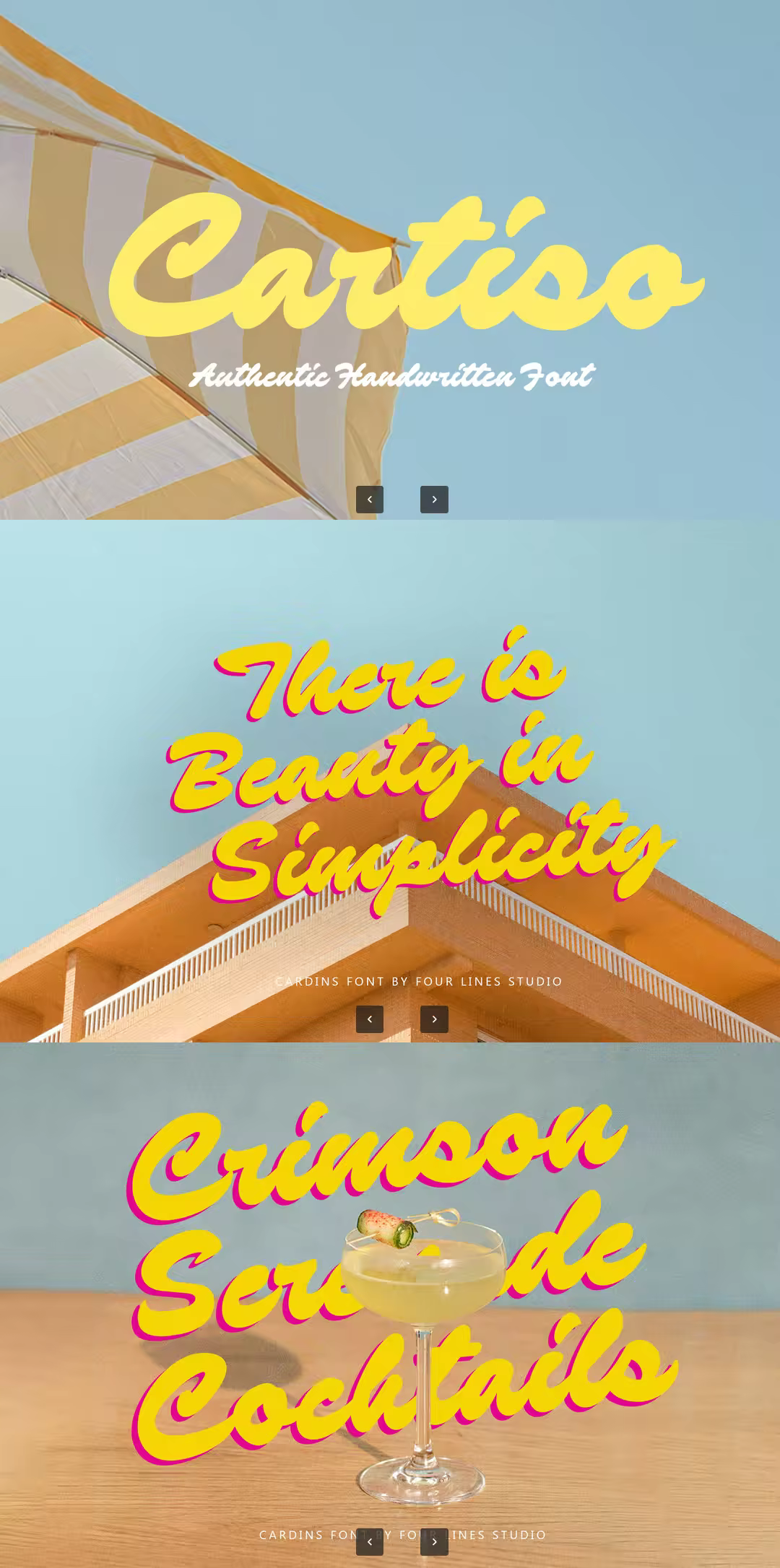
EE - Cartiso – Authentic Handwritten font T9QW2P2
Cartiso is a bold script font inspired by marker strokes, featuring a vibrant retro feel. Its funky character makes it well suited for expressive headlines and eye-catching designs.